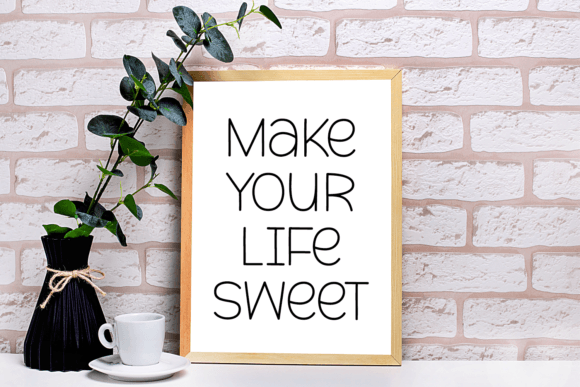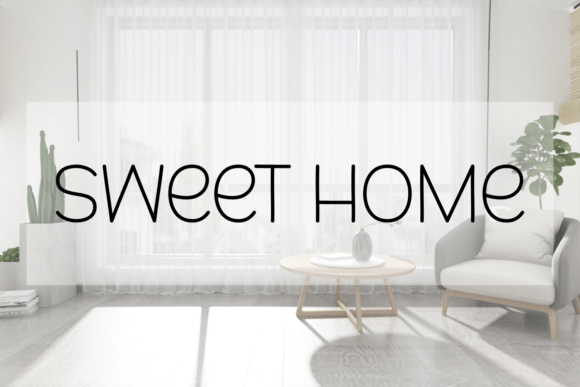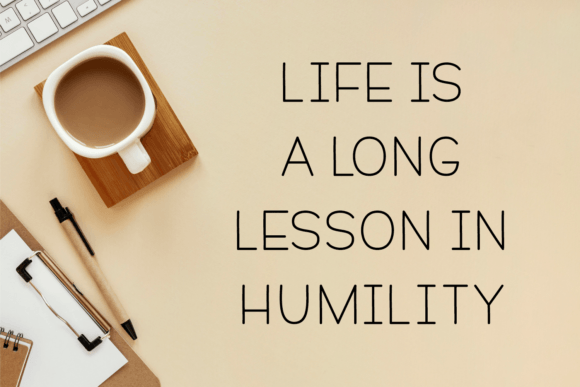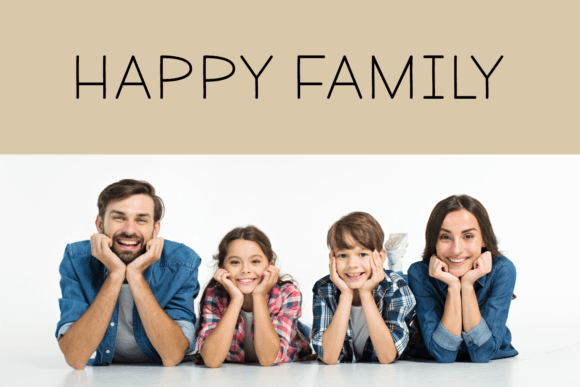
Introducing Fabagho Font: The Ultimate Design Companion for Crafty Projects
Are you a designer, crafter, or DIY enthusiast looking for a font that can add a touch of cuteness and personality to your projects? Look no further than Fabagho Font! This charming and friendly font is perfect for a wide range of applications, from invitations and social media graphics to t-shirts, logos, and print designs.
The Versatility of Fabagho Font
One of the standout features of Fabagho Font is its incredible versatility. Whether you’re working on a formal invitation or a casual social media post, this font can adapt to any style or tone. Its unique blend of playfulness and sophistication makes it an excellent choice for designers and crafters who want to add a personal touch to their work.
So, what kind of projects can you use Fabagho Font for? The possibilities are endless! Here are a few ideas to get you started:
- Invitations: Create beautiful and eye-catching invitations for weddings, birthday parties, baby showers, and other special occasions.
- Social Media Graphics: Add a pop of personality to your social media posts with custom graphics featuring Fabagho Font.
- T-Shirts and Merchandise: Design unique and stylish t-shirts, mugs, and other merchandise that will stand out from the crowd.
- Logos and Branding: Use Fabagho Font to create a memorable and recognizable brand identity for your business or personal project.
- Print Designs: Add a touch of whimsy to your print designs, such as brochures, flyers, and posters.
What Makes Fabagho Font So Special?
So, what sets Fabagho Font apart from other fonts? Here are a few key features that make it so special:
- Crafty and Friendly: Fabagho Font has a unique, hand-crafted feel that’s both friendly and approachable.
- Cute and Playful: This font is perfect for adding a touch of cuteness and playfulness to your designs.
- Highly Legible: Despite its playful nature, Fabagho Font is highly legible and easy to read, even at small sizes.
- Customizable: You can use Fabagho Font in a variety of contexts, from digital designs to print materials.
Tips for Using Fabagho Font Effectively
Now that you know how amazing Fabagho Font is, here are a few tips for using it effectively in your designs:
- Experiment with Colors: Fabagho Font looks great in a variety of colors, so don’t be afraid to experiment and find the perfect hue for your design.
- Mix and Match: Combine Fabagho Font with other fonts to create a unique and visually interesting design.
- Play with Size: Use Fabagho Font in different sizes to add emphasis and create visual hierarchy in your design.
- Add Texture and Patterns: Consider adding texture or patterns to your design to give it an extra layer of depth and interest.
| Author | Riman (7NTypes) |
In conclusion, Fabagho Font is a versatile and charming font that’s perfect for designers, crafters, and DIY enthusiasts. Its unique blend of playfulness and sophistication makes it an excellent choice for a wide range of projects, from invitations and social media graphics to t-shirts, logos, and print designs. With its high legibility, customizability, and crafty feel, Fabagho Font is sure to become a staple in your design toolkit.